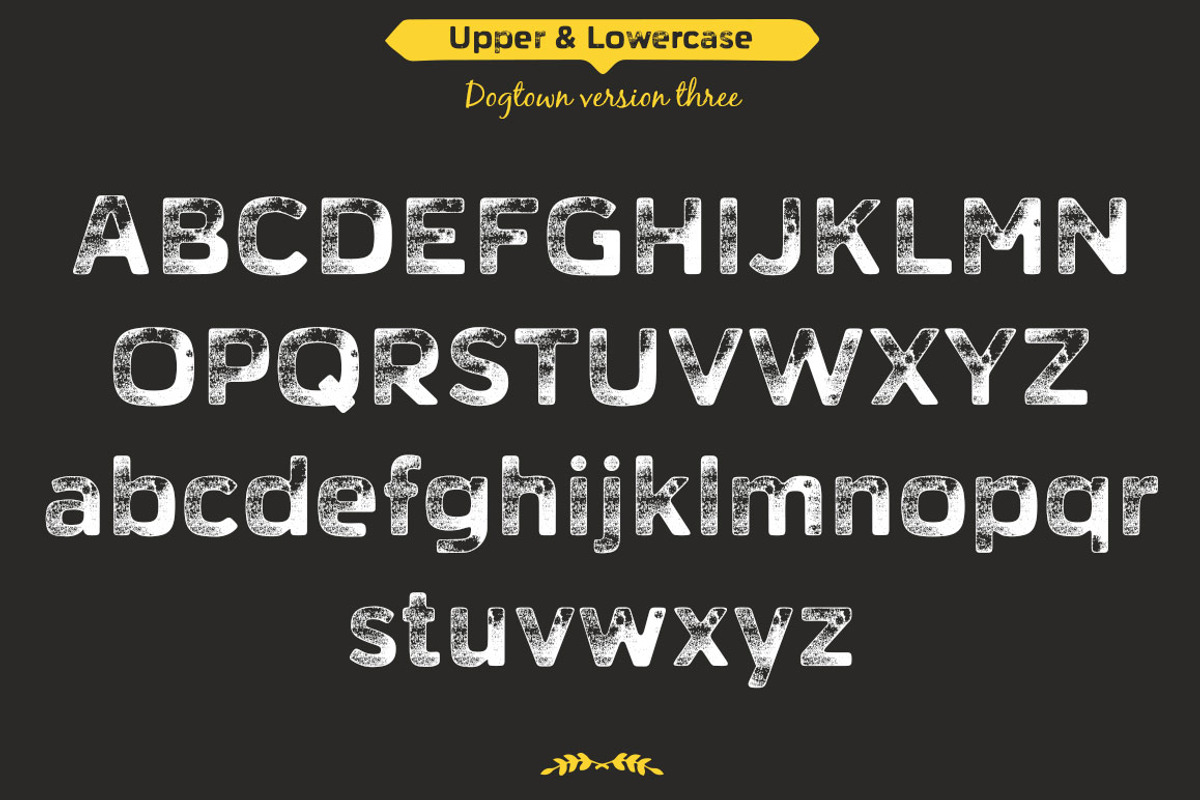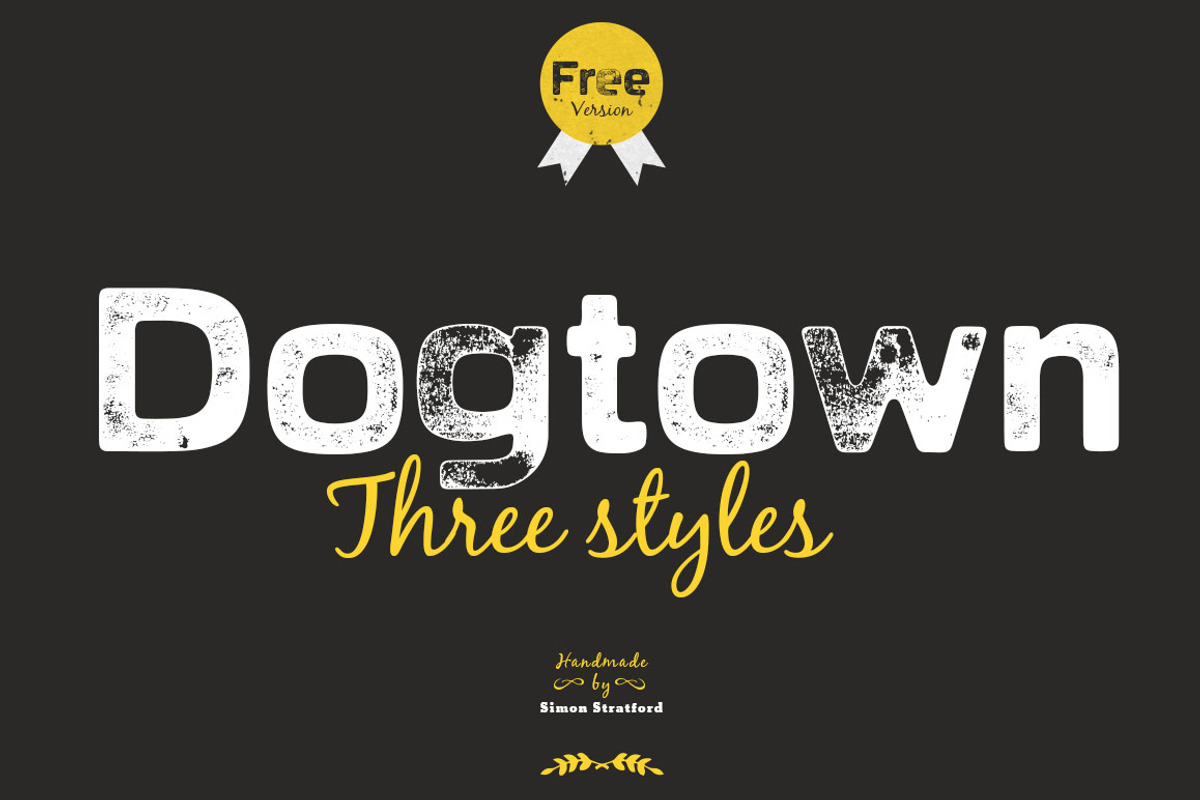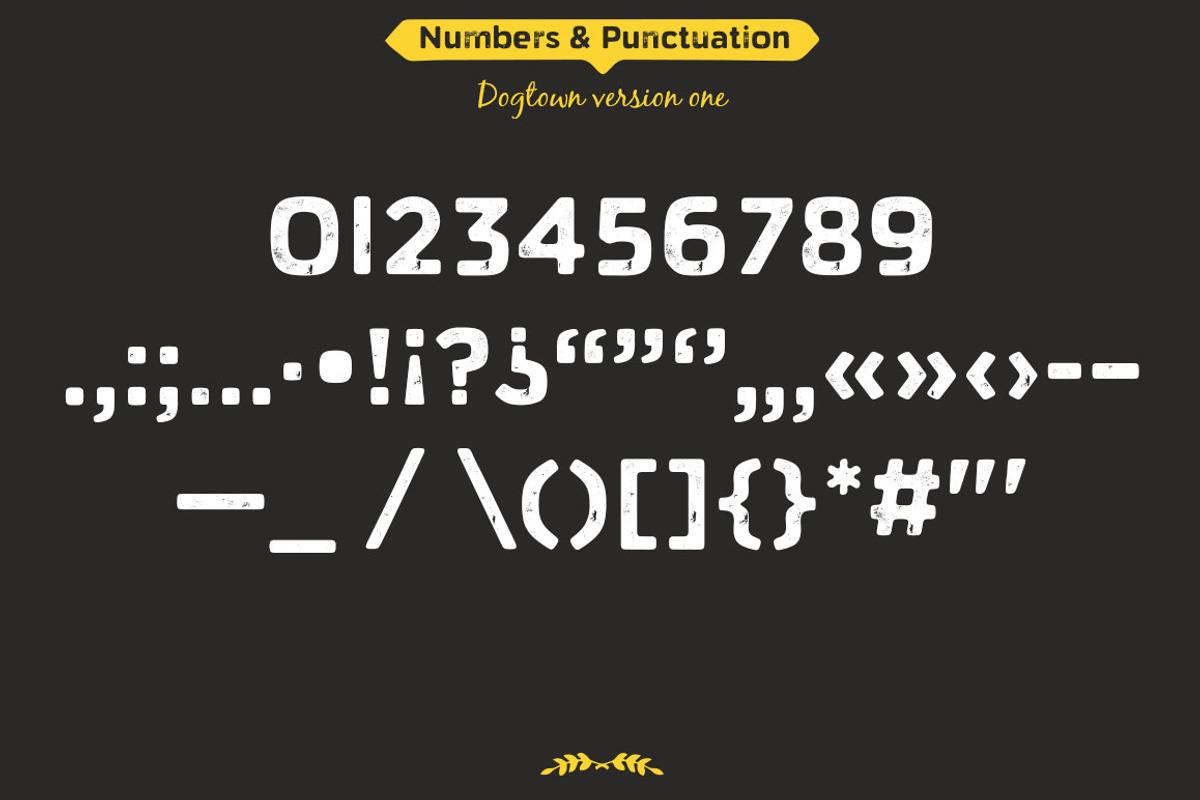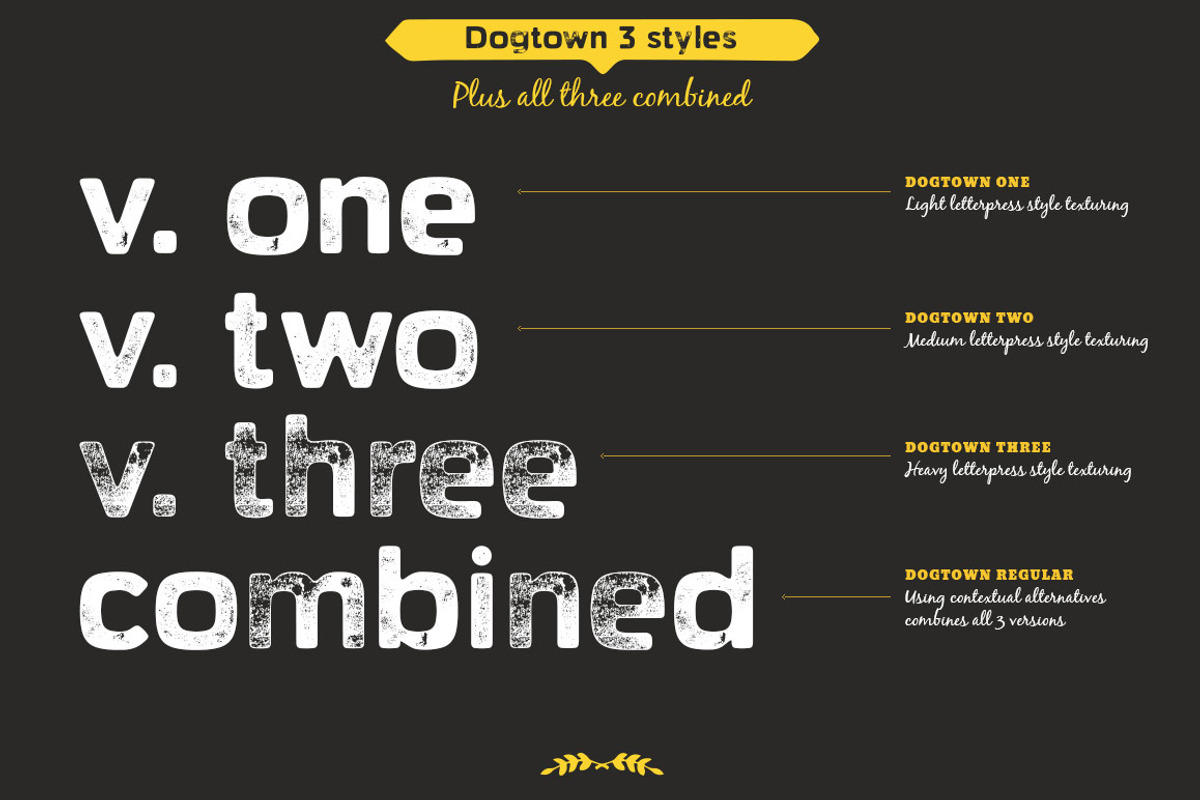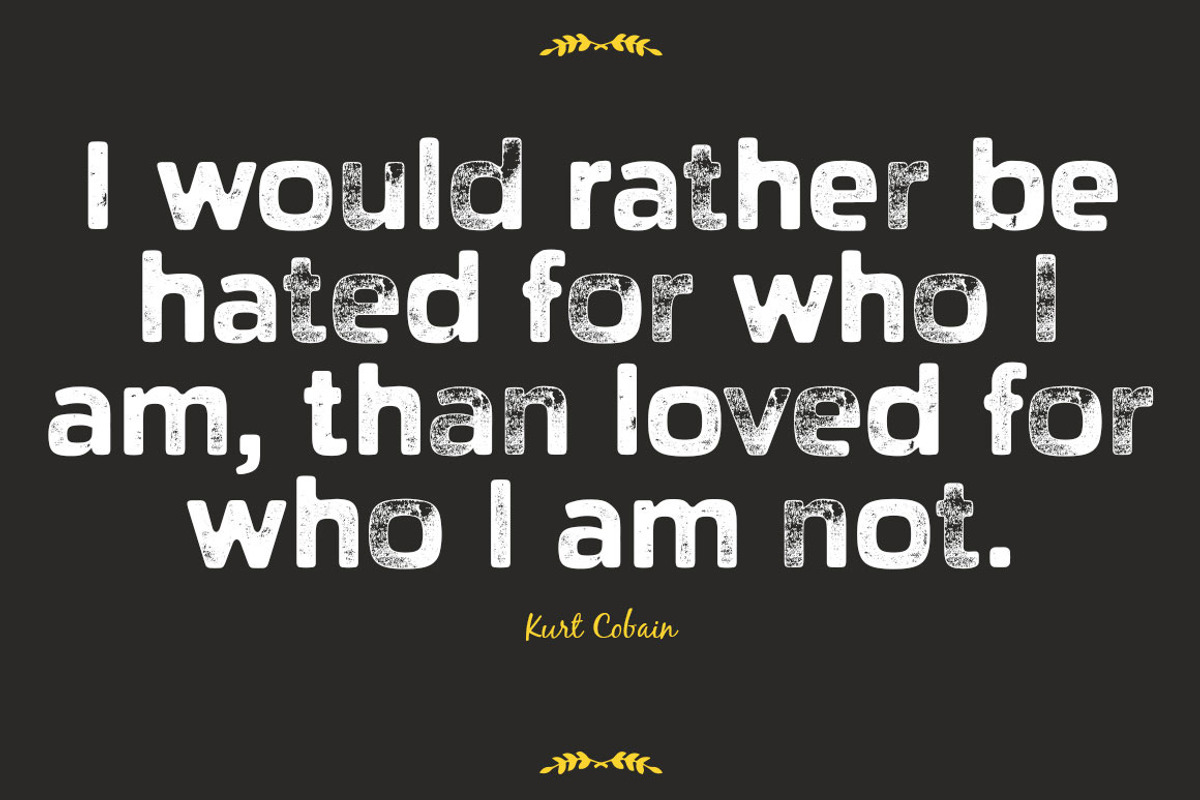
Display font Dogtown sans serif
Dogtown is my attempt at adding a massive amount of texture to a font. I used my own rolled ink textures to give that old school printed look and feel. It has a mix of three styles to give that wood type vintage letterpress effect.
It works best at large sizes as there is so much detail.
It has 4 versions in total
- Dogtown 1 - With light texture
- Dogtown 2 - With medium texture
- Dogtown 3 - With heavy texture
- Dogtown (regular) - Contains all of the above using contextual alternatives.
Contextual alternatives
That means it will alternate between 3 glyphs for each letter, number and punctuation mark. You will need to turn of contextual alternatives option in your design package for this to work.
You can also switch out letters by selecting through the glyphs palette or by selecting Dogtown one, two or three font.
The intention was to make everything look more irregular and less repetitive, more like natural letterpress printing.
It includes uppercase, lowercase, numbers, punctuation, symbols, western european, central european and South Eastern glyphs. The font format is otf. In the main regular font (with contextual alternatives) it has over 600 glyphs!